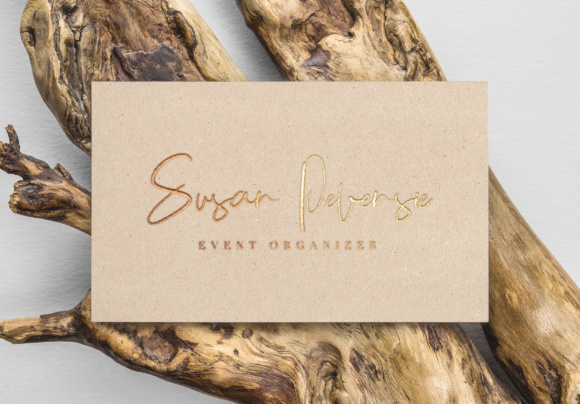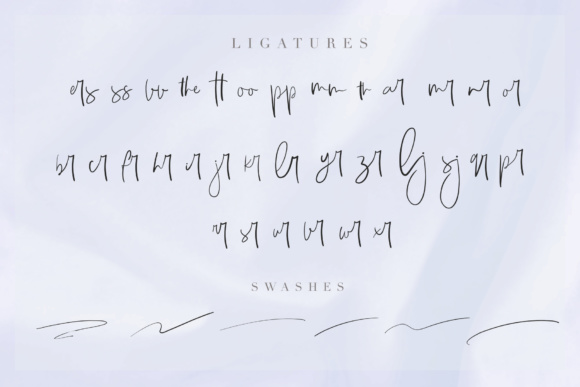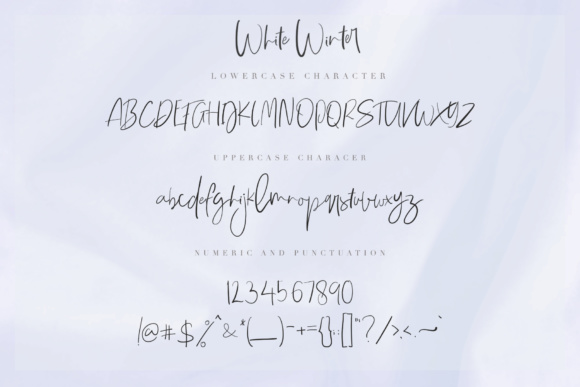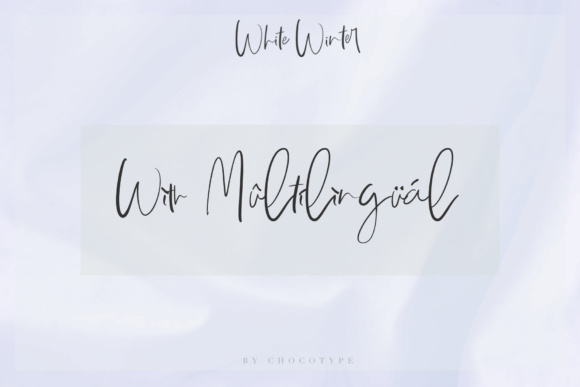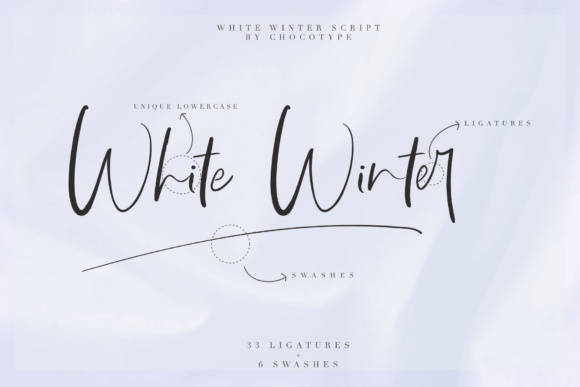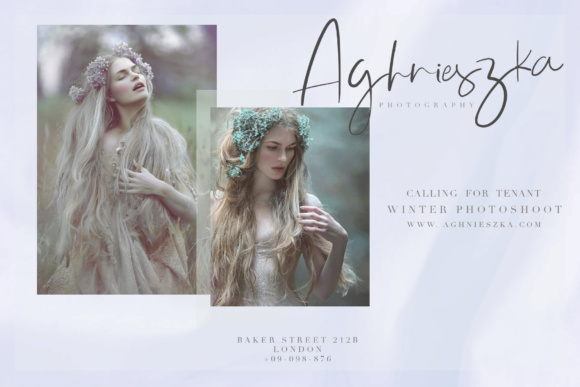
White WInter Font
About White WInter Font
This ‘White Winter’ script font comes with an unique character set. It’s perfect for branding, wedding invites, advertisement, and cards.
It’s full set of gorgeous letters, numerals, ligatures and swashes, give it a realistic hand lettered feel.